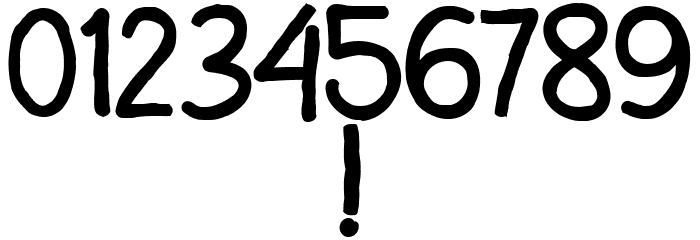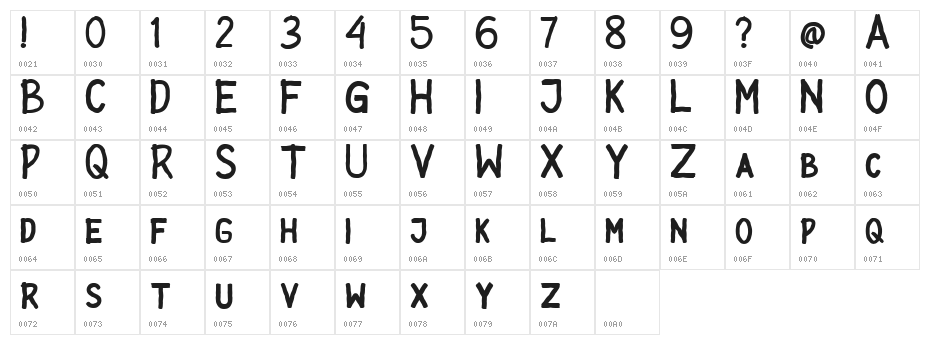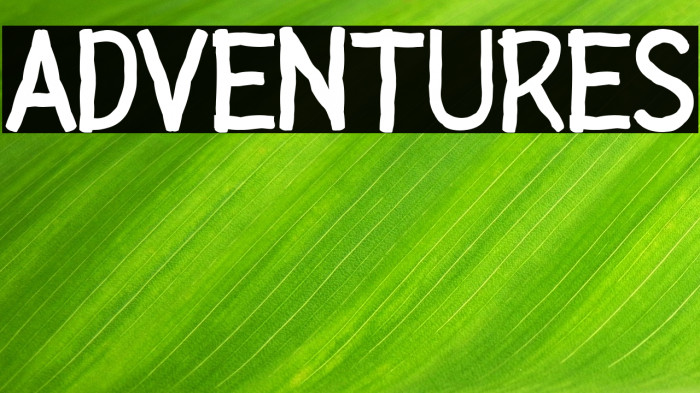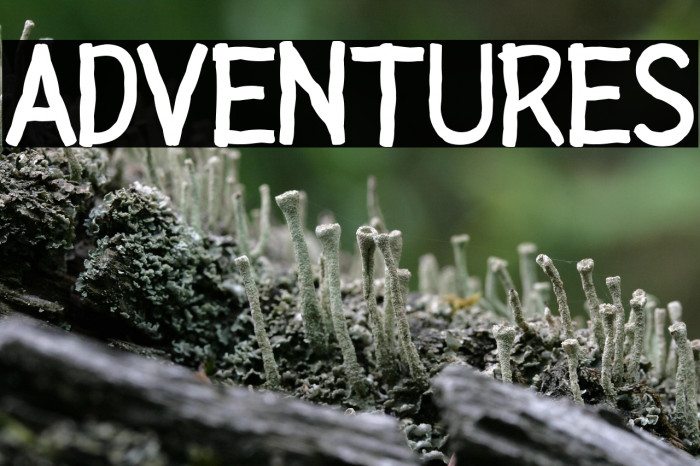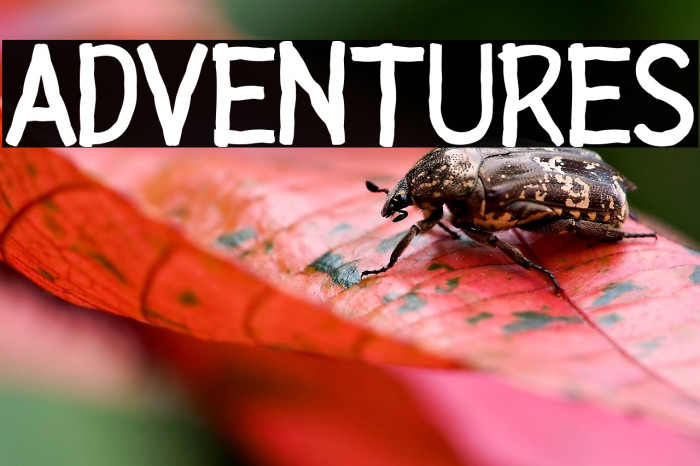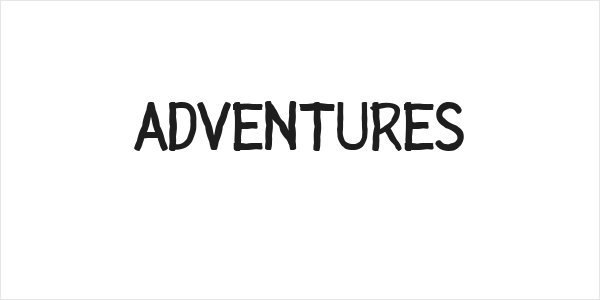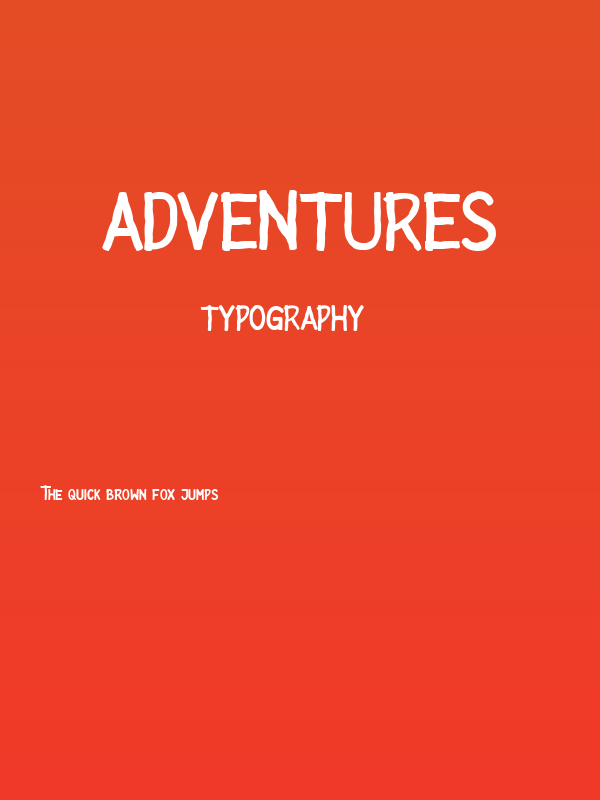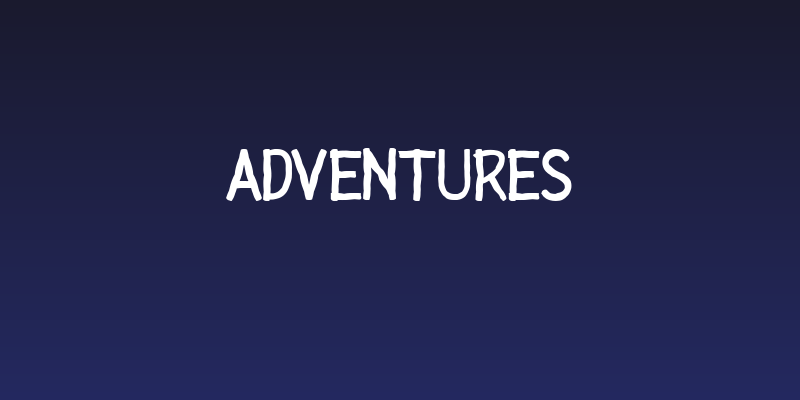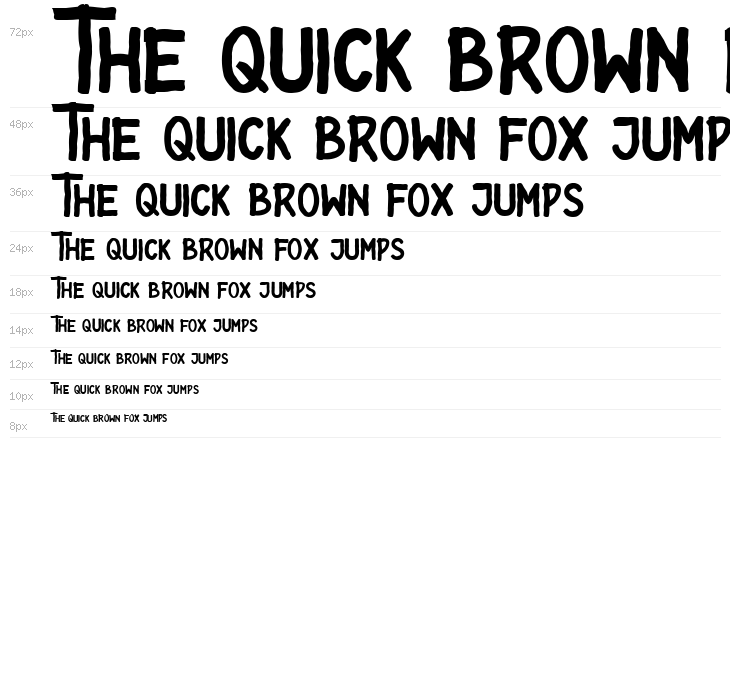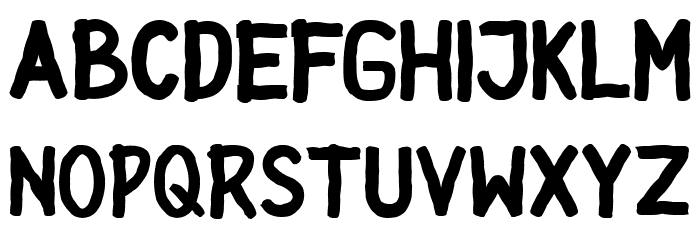
ADVENTURES Font
ADVENTURES Description
This font features a bold and playful design, characterized by its hand-drawn appearance. The letters have a slightly irregular shape, giving them a casual and informal feel. The strokes are thick and consistent, providing a strong visual impact. The numbers and special characters maintain the same playful style, ensuring a cohesive look across all elements. The overall design is reminiscent of a handwritten style, making it suitable for projects that require a personal touch.
| Proposed Projects | Ideal for children's books, comic strips, playful branding, and casual invitations. |